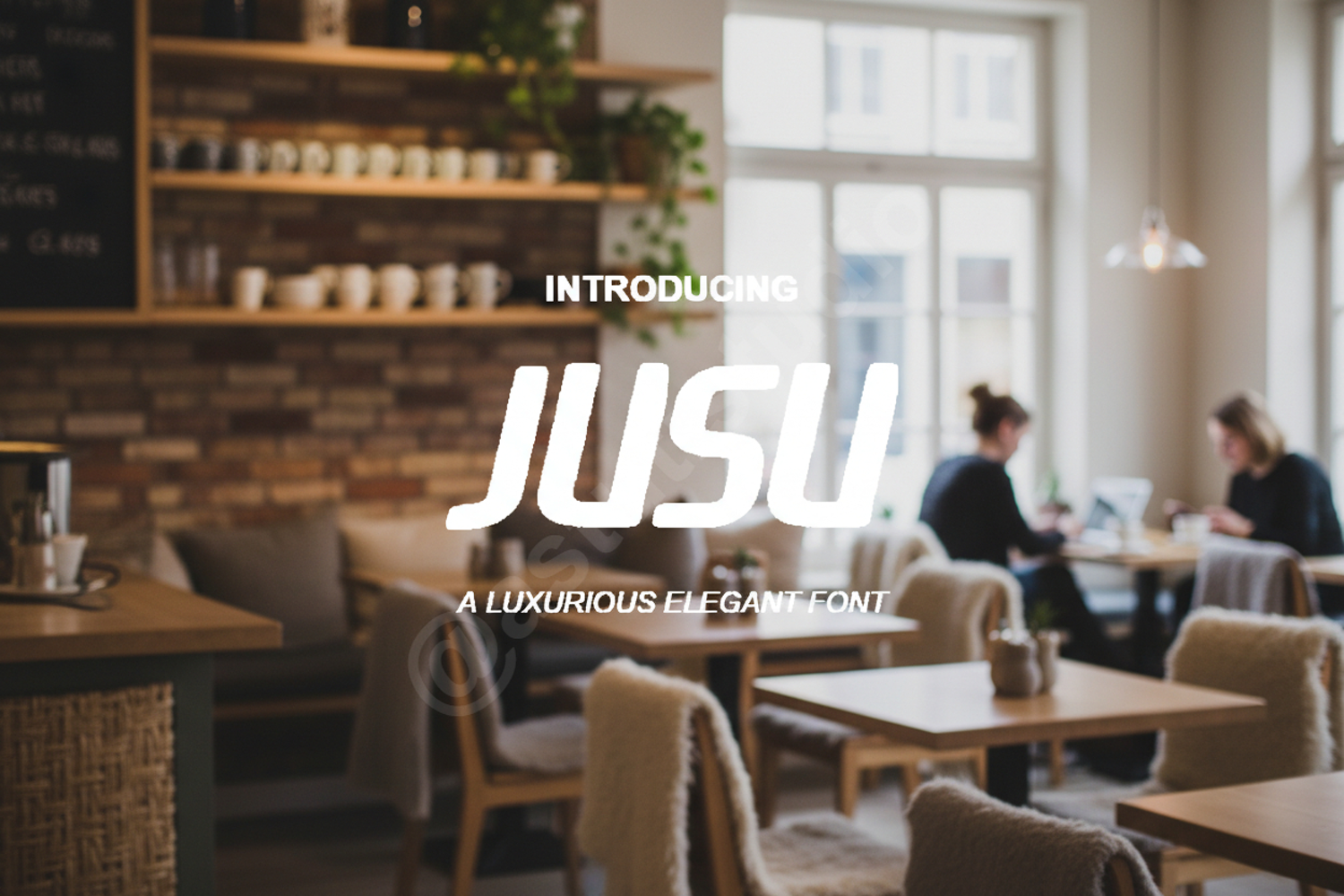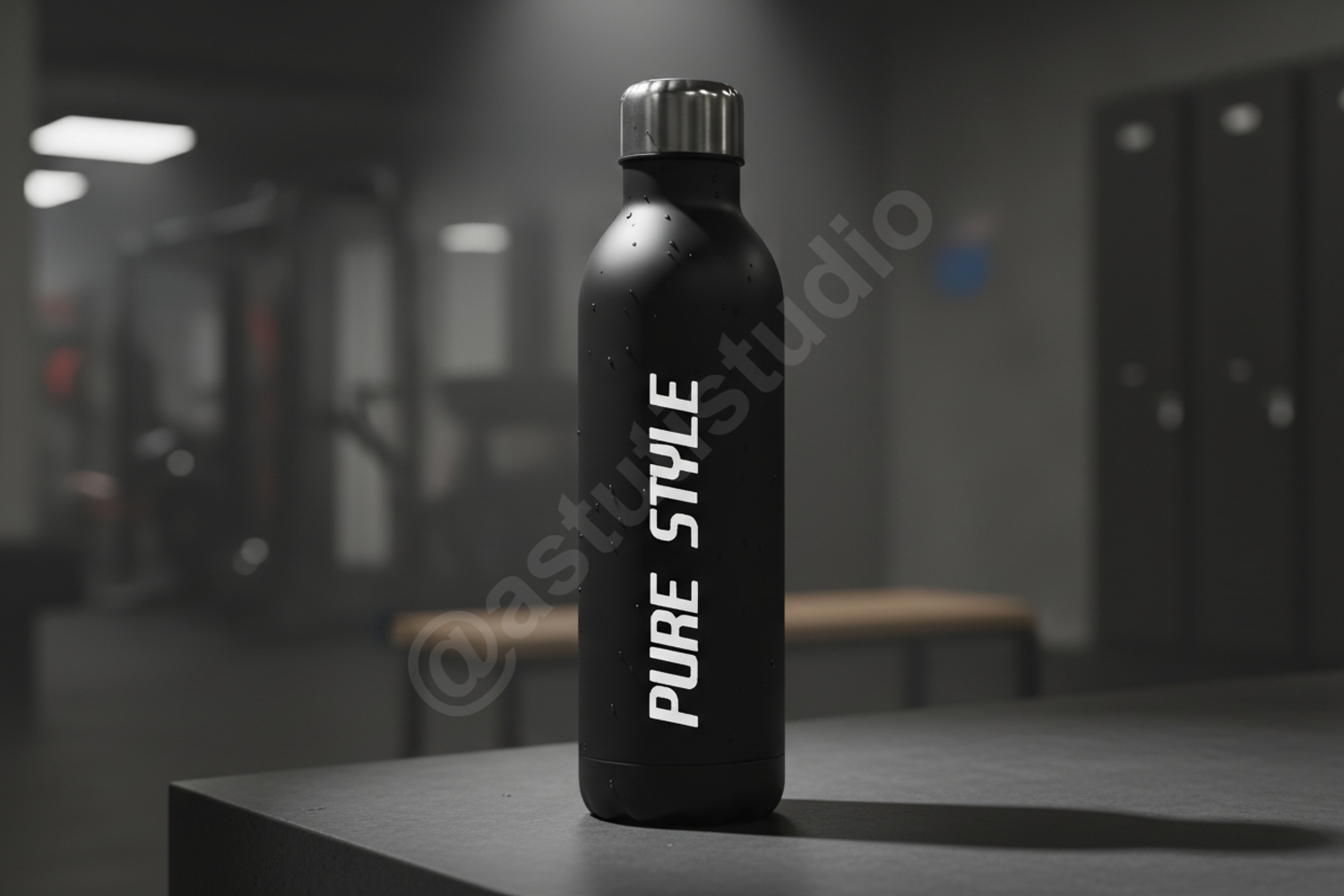
Jusu - Modern Minimalist Display Sans Serif
Jusu
Jusu is a premium display typeface designed for those who value clean aesthetics and modern sophistication. This font features balanced proportions and sleek lines, offering a contemporary look that elevates any creative project. Whether you are aiming for a high-end luxury feel or a sharp professional appearance, Jusu provides the versatility and clarity needed for premium design work.
- Branding and Visual Identity: Create memorable logos and cohesive brand marks.
- Wedding Stationery: Perfect for modern, minimalist invitations and save-the-dates.
- Editorial Layouts: Ideal for magazine headers, titles, and high-fashion spreads.
- Luxury Packaging: Enhance the perceived value of premium products with clean typography.
- Digital Content: Optimized for legibility in social media graphics and website headers.